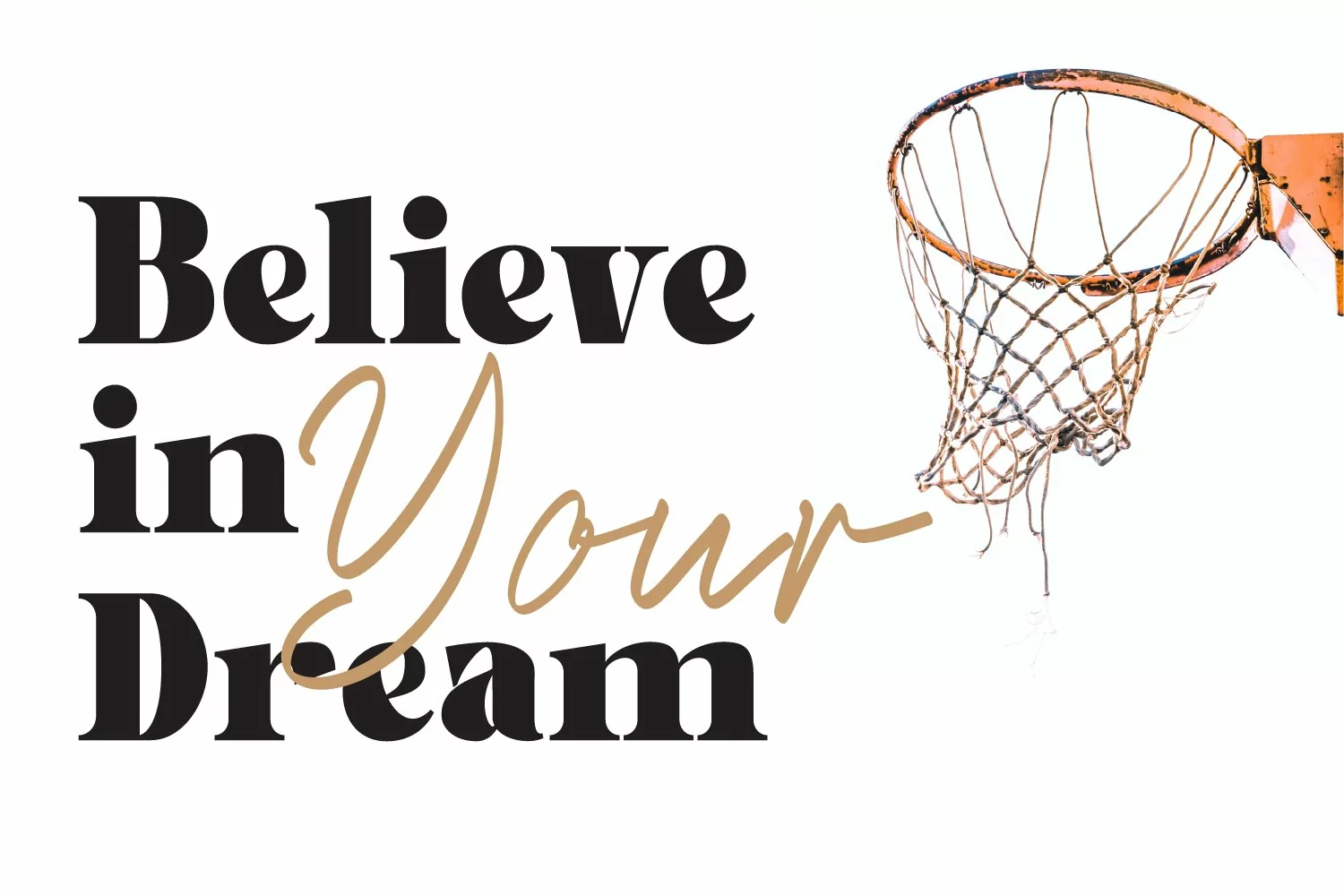
Gafeniv - Serif & Script Font
Gafeniv is a Duo font. It has an elegant, and modern look which can be used for logos, branding, invitations, stationary, wedding designs, social media posts, and every other design. Gatheraz font is PUA encoded which means you can access all of the glyphs